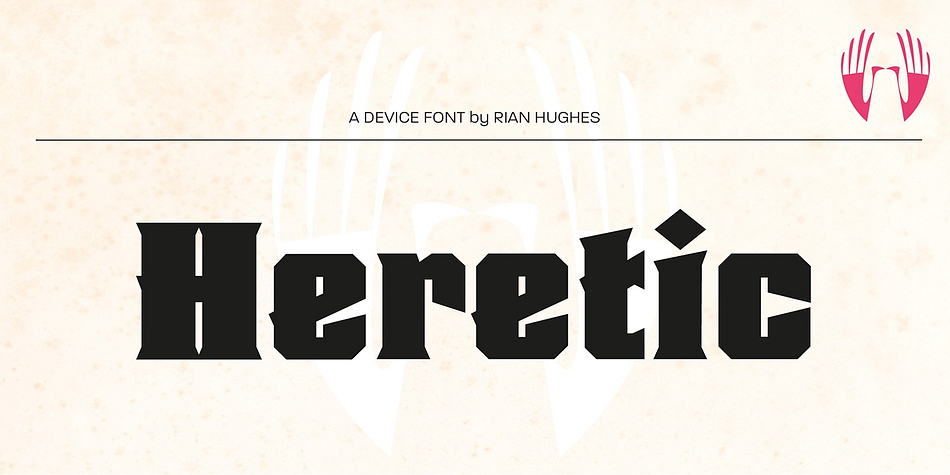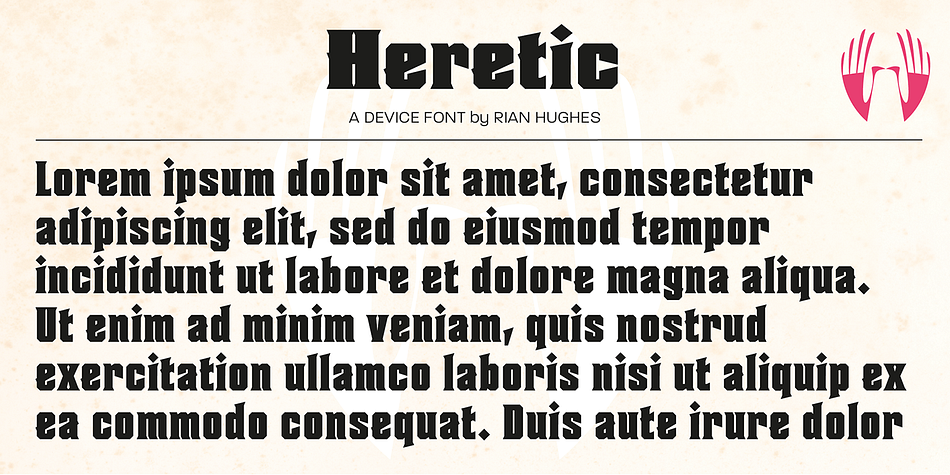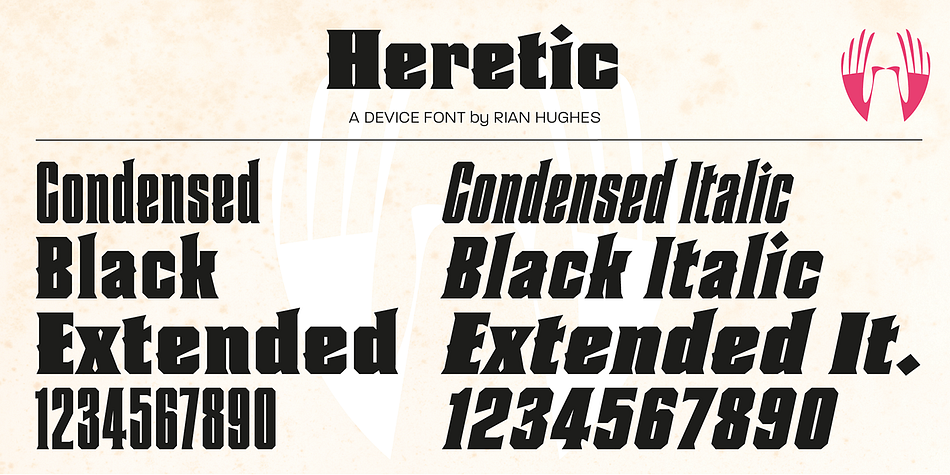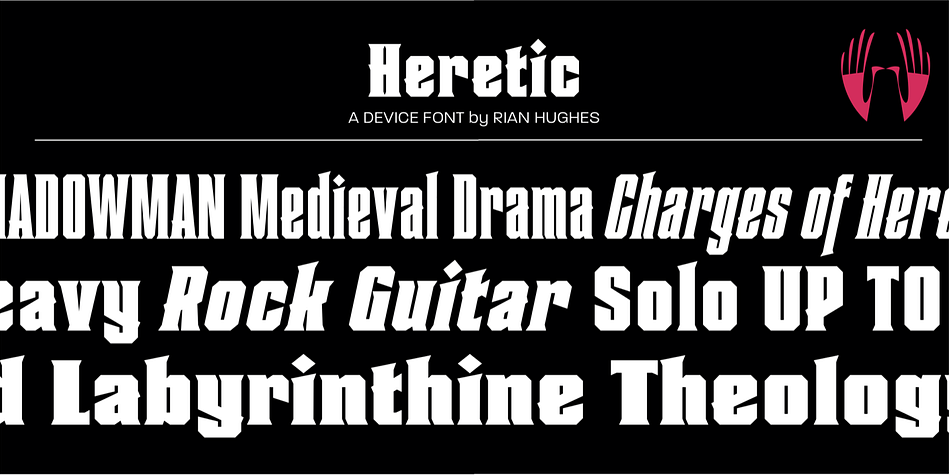
Designed by Rian Hughes, Heretic is a display serif font family. This typeface has six styles and was published by Device.
Heretic surrounds itself with an atmosphere of evil, carnival freakshow and no-nonsense thuggery.
Mix the black and condensed weights of this octagonal blackletter together for more interesting, yet disconcerting results.